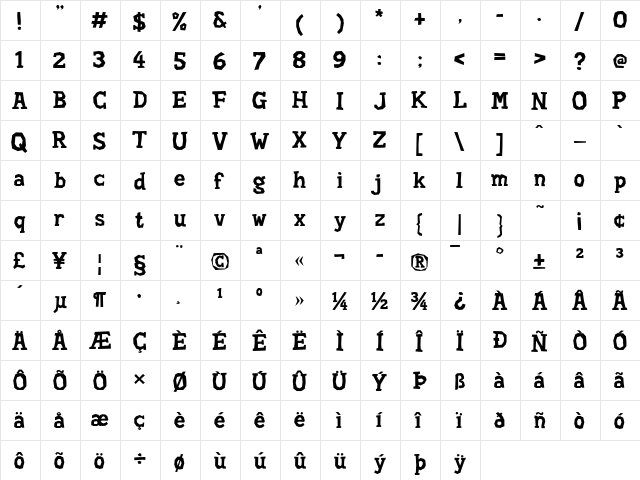
Hard Compound Regular
| Foundry | LeFly |
Design Context for Hard Compound Typeface
Hard Compound takes a measured approach to typography — its balanced proportions and neutral character make it a reliable workhorse for both digital and print work.